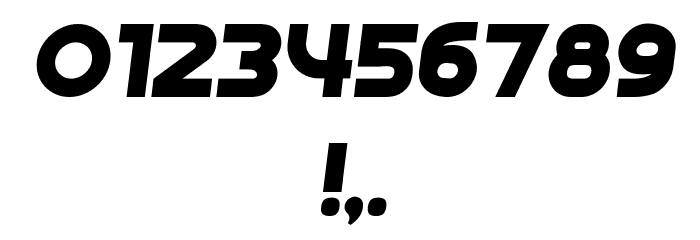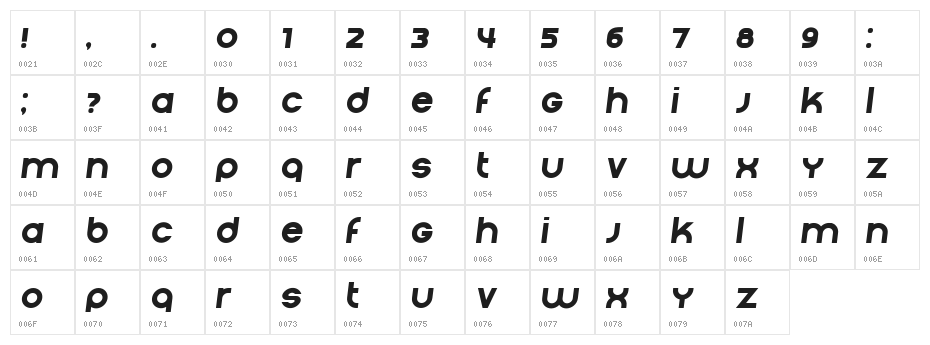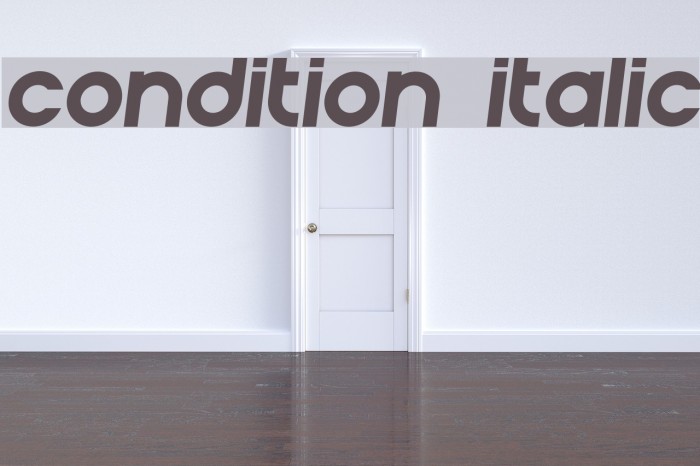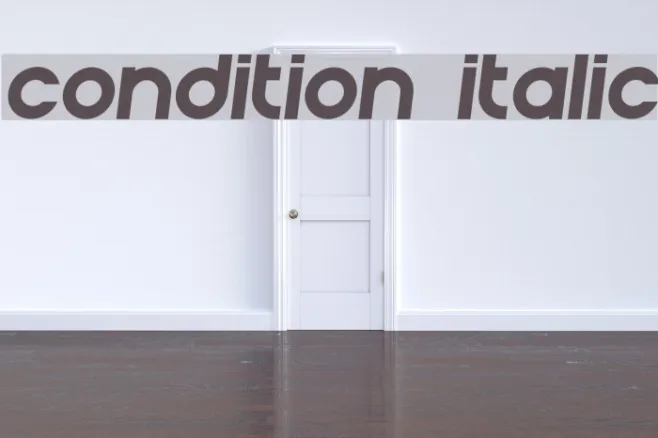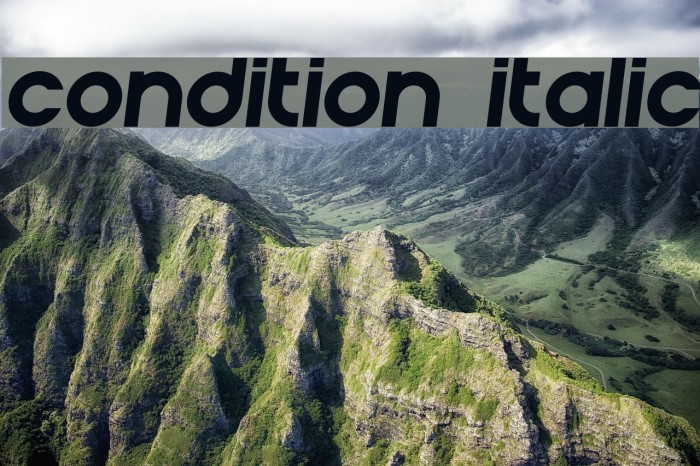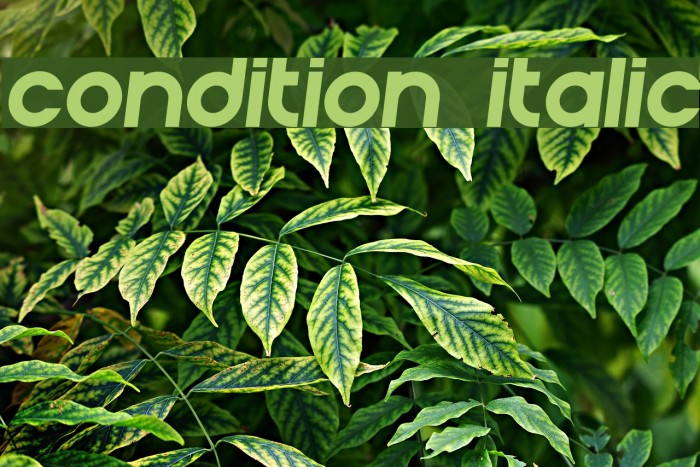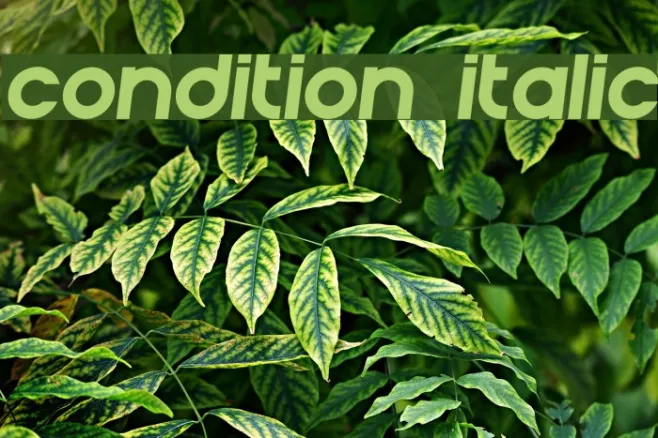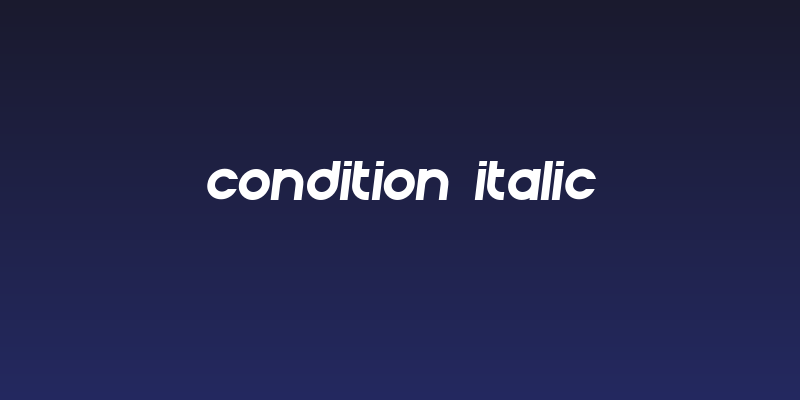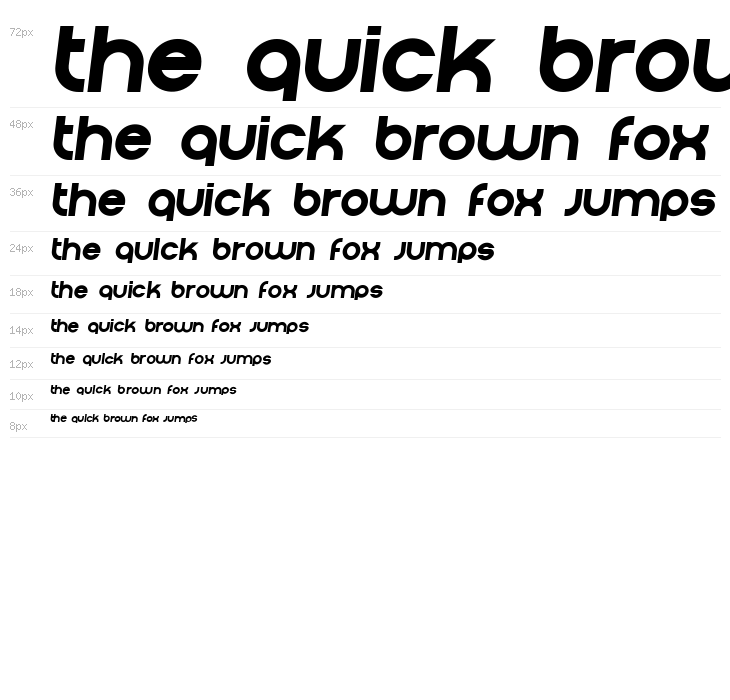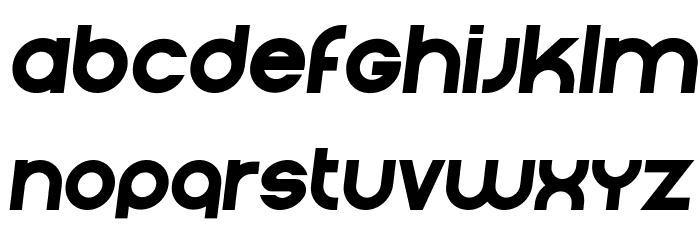
Condition Italic Font
Condition Italic Description
This font features a bold and dynamic style with a distinct italic slant, giving it a sense of motion and energy. The characters are rounded and smooth, with a consistent stroke width that adds to its modern appeal. The lowercase letters are particularly notable for their uniformity and balance, while the uppercase letters maintain a strong presence. The numerals are bold and easily readable, making them suitable for various applications. The special characters are designed to complement the overall aesthetic, ensuring a cohesive look across different uses.
| Proposed Projects | Ideal for branding, advertising, and headlines where a modern and energetic look is desired. |